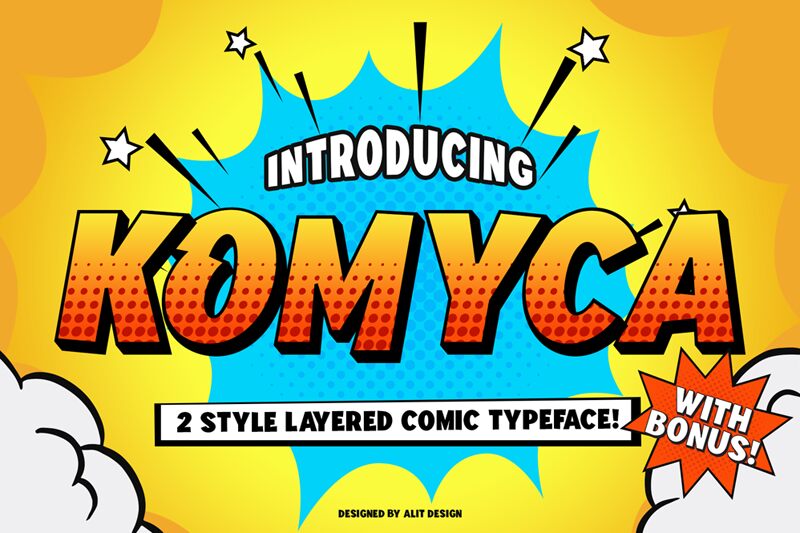
Komyca 3D Italic, a standout member of the Komyca family, springs to life with its bold and whimsical character. Designed masterfully by Alit Design, this display font merges the playful essence of comic style with the dynamic flair of 3D typography. The italic slant adds a sense of motion and energy, capturing the viewer's attention with its exaggerated forms.
The font's robust weight ensures that it holds its ground in any creative setting. Its three-dimensional appearance gives a tactile feel to graphics, making it an irresistible choice for titles, logos, animated content, and any project aiming to make a statement. The Komyca 3D Italic is not merely a typeface but an artistic tool poised to elevate designs with its lively personality and aesthetic appeal.